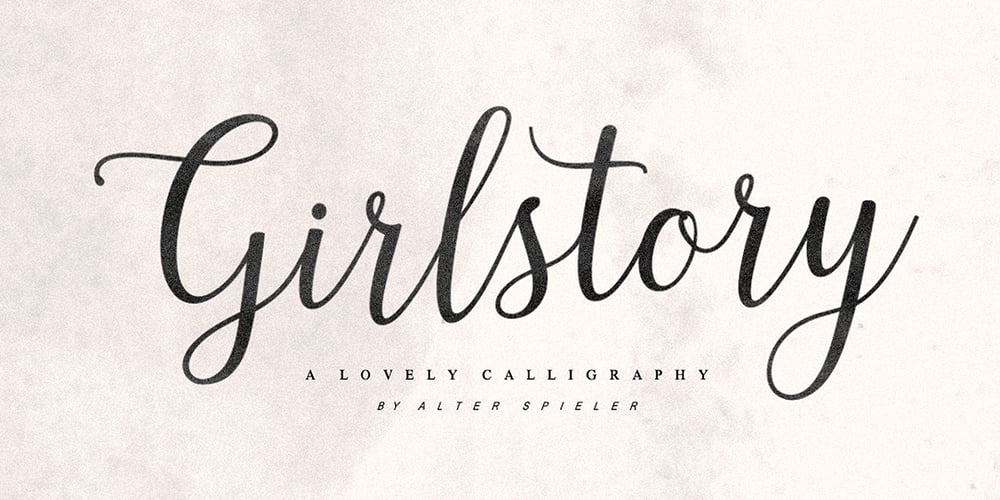
Girlstory Script Font Family was designed by Amri and published by Alterspieler. Girlstory Script contains 1 styles and family package options. Girlstory is a font that inspired the story of a woman who tries hard for her children, never giving up in order to achieve and keep happiness together. This font has simple and interesting style characters for various design needs at this time, you can use it for embroidery, screen printing, business cards, cutting, branding, etc.